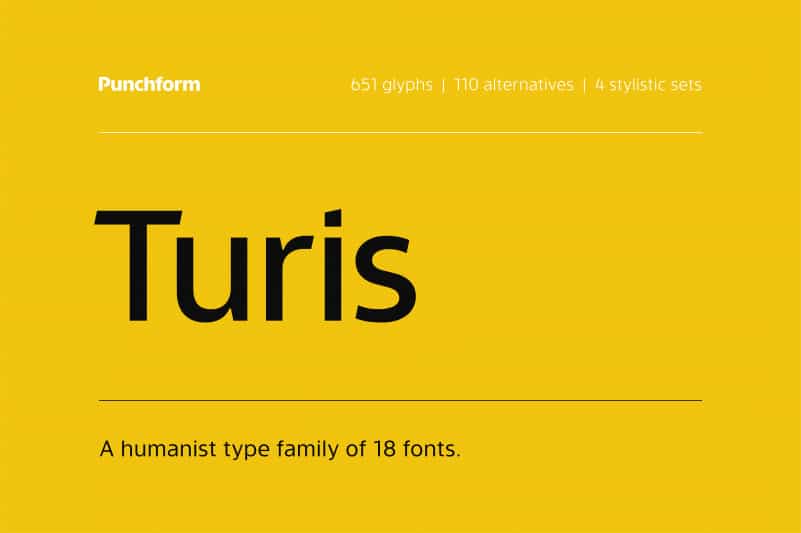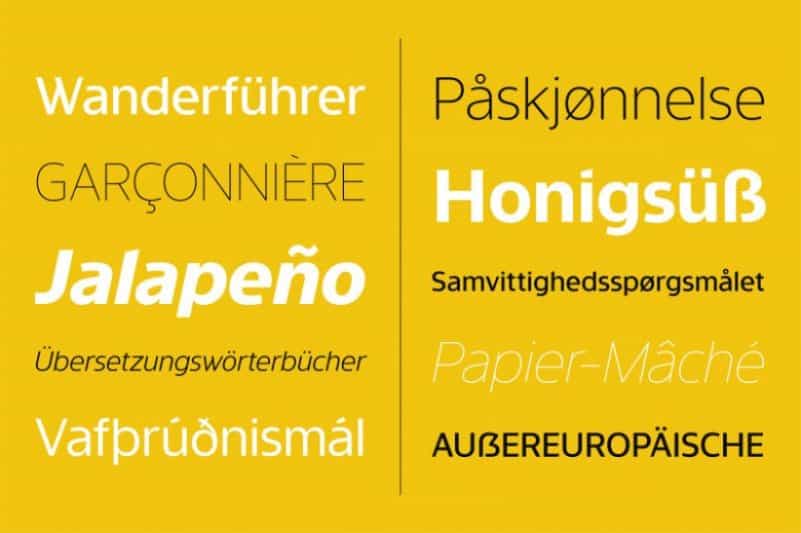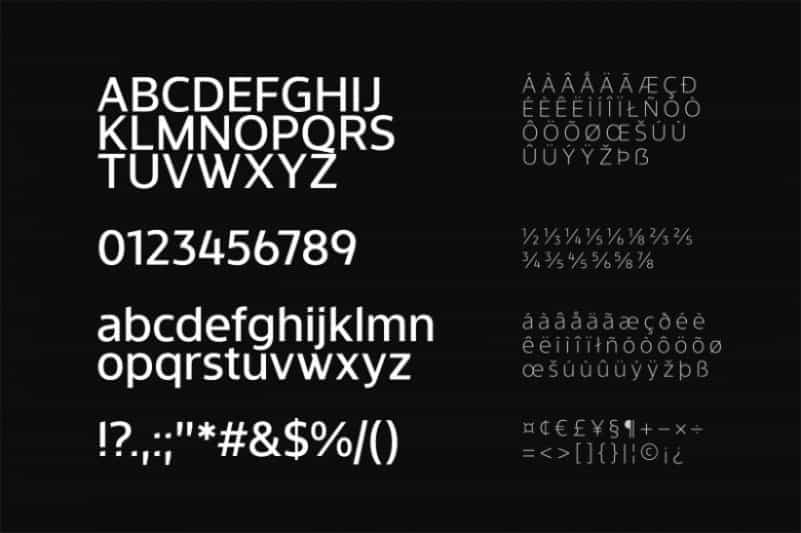
Turis is an innovative Sans Serif font created by Mihai Sorin and released in 2021 by Punchform. This family features 18 weights – 9 uprights and 9 italics from thin to Black – from Light through ExtraBold weights for personal or commercial projects alike. Turis also allows graphic designers to develop advanced typographic layouts using its 110 different glyphs and four stylistic sets.